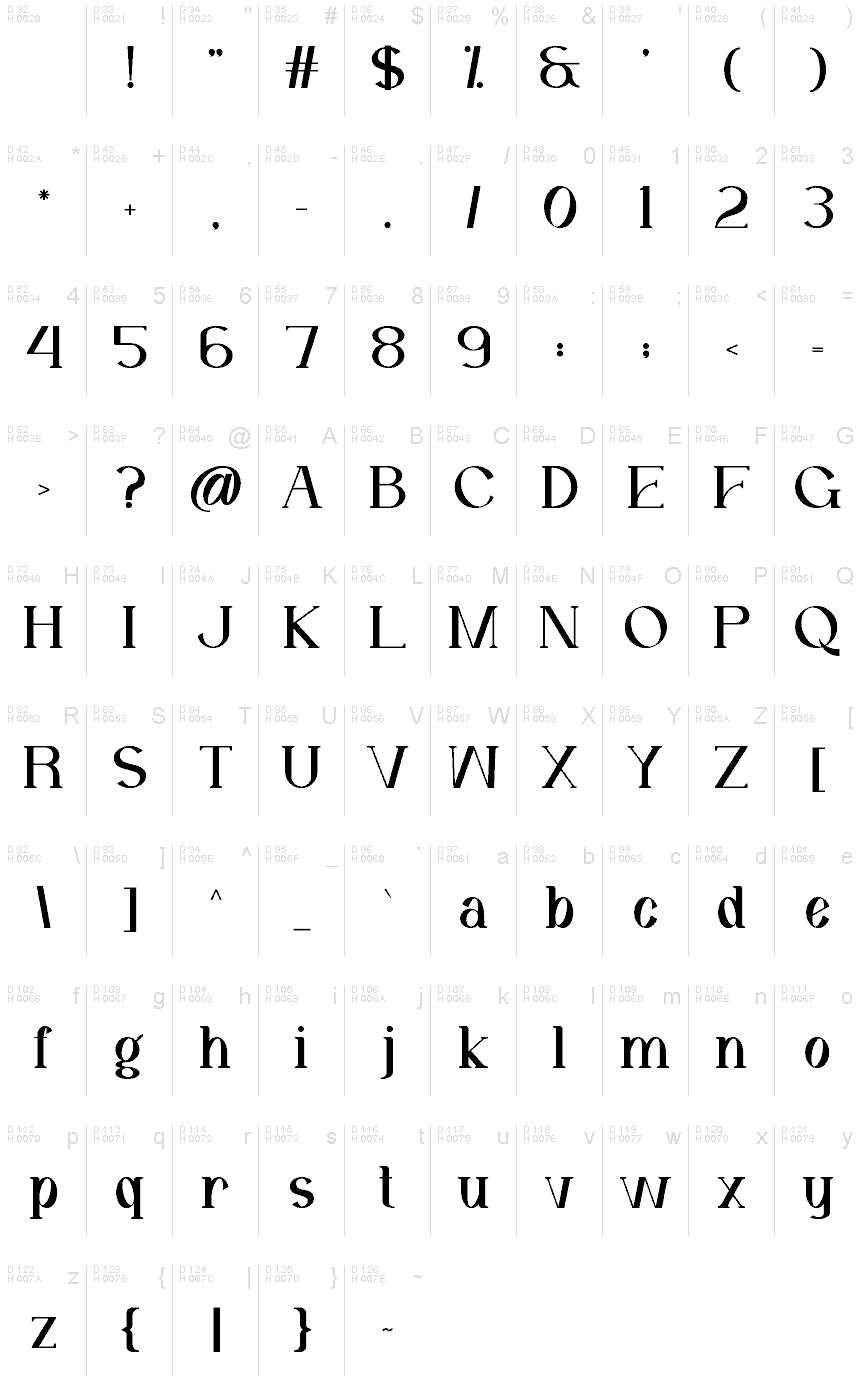
GHOAS
Ghoas font by Gilang Ternadho is a classic serif font that blends traditional elegance with a touch of sophistication. With its historical influences, this font embodies an artistic flair of style and class that make it highly suitable for art-related purposes in particular. Also, this versatile typeface can look good on seasonal designs for fall and winter.
This free serif font will create an intimate vibe wherever used. Simply utilize it for magazine covers or layouts, book covers or pages, TV show titles, channel logos, infographics, posters and banners, website headings and subheadings, signages as well as illustrated stories like children’s books.